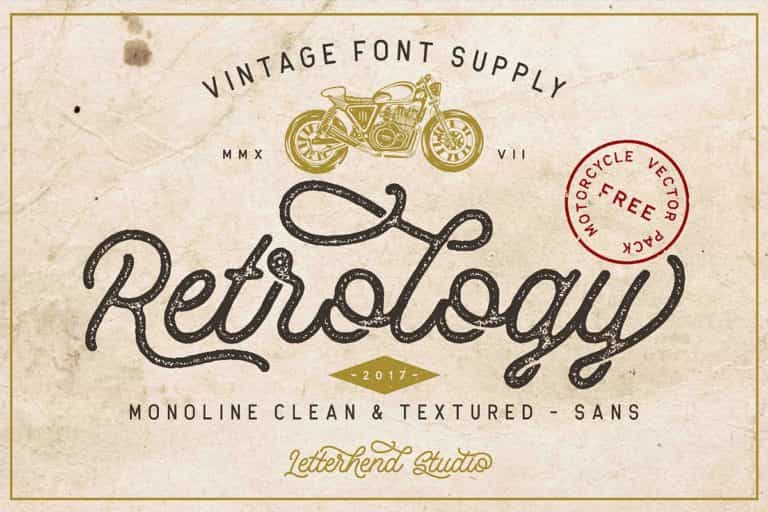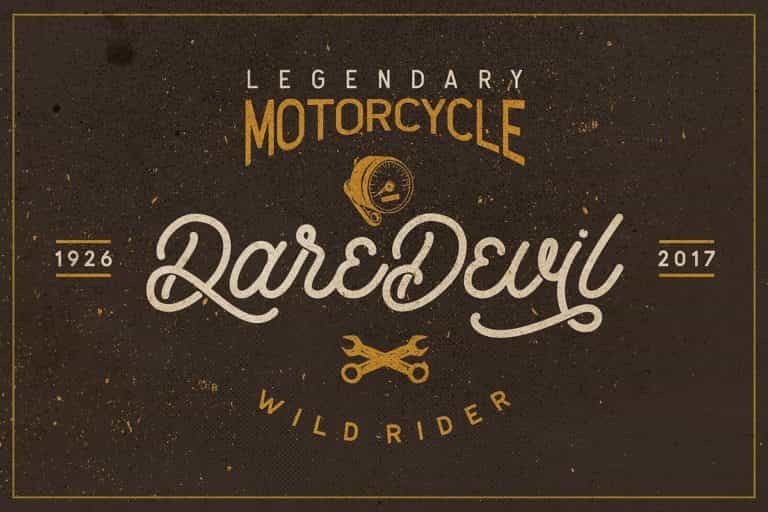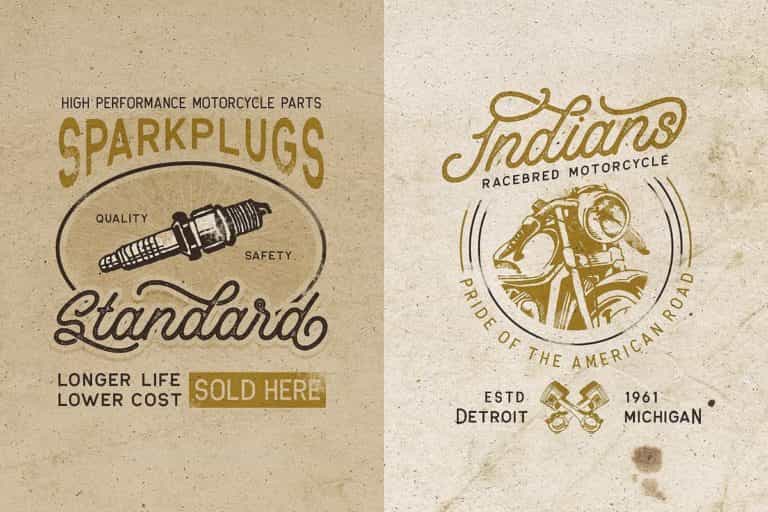
Discover Retrology Script Font, part of the Display Retro Typewriter collection—a versatile and unique font perfect for adding a personal touch to your projects. Download it for free and enjoy crafting designs with style, from invitations to social media posts. This font is available exclusively for personal use, giving you the freedom to create without limits. Unlock your creativity with Retrology Script Font today!
Introducing Retrology Font. Retrology this monoline typeface will take you back to the good old days with its classic touch! It is perfect for invitations, signatures, blogs, social media, business cards, product brands.